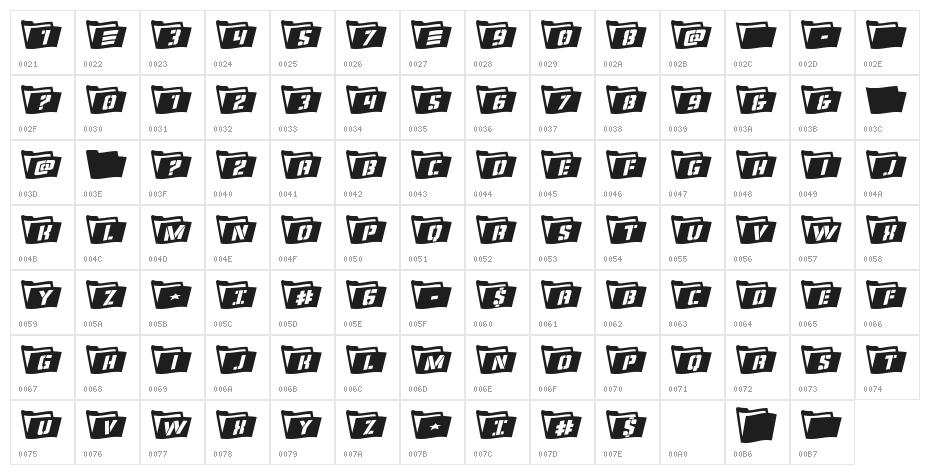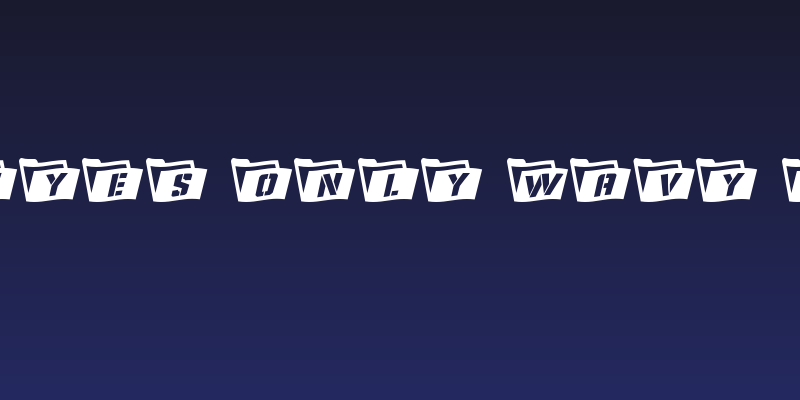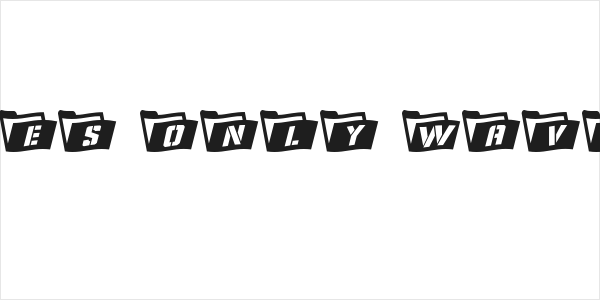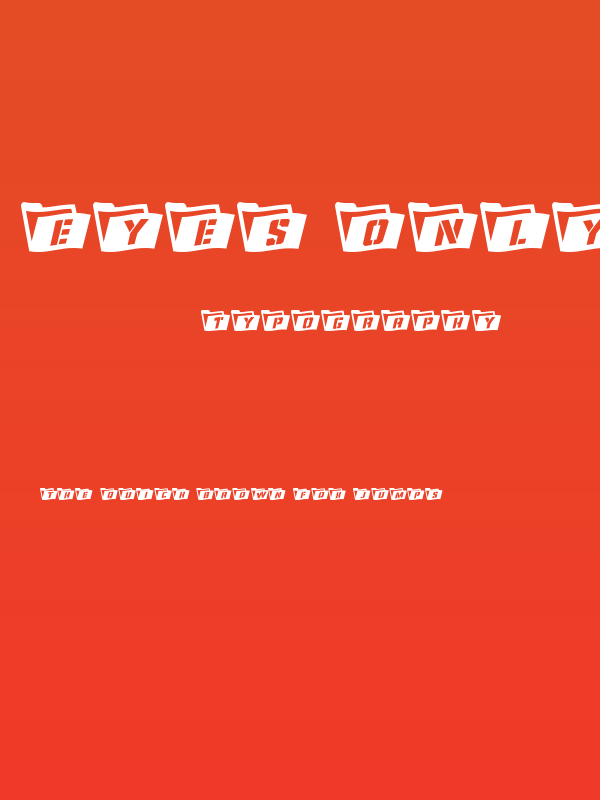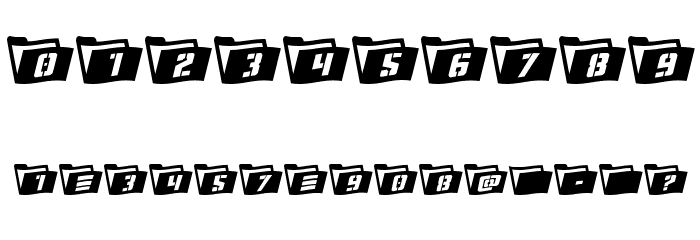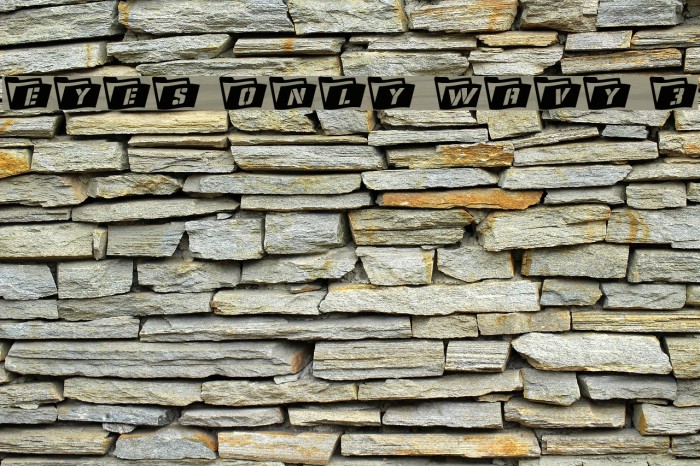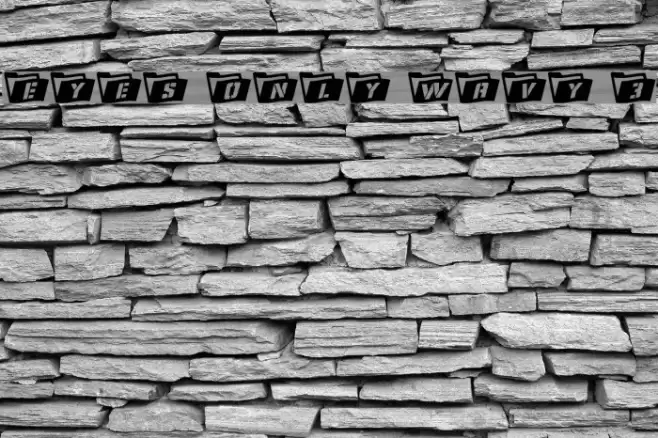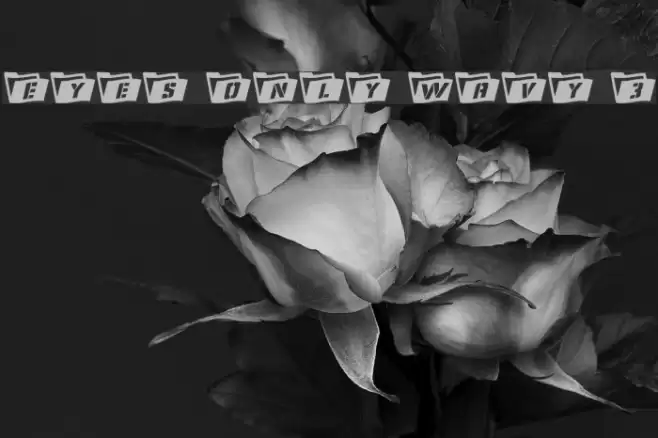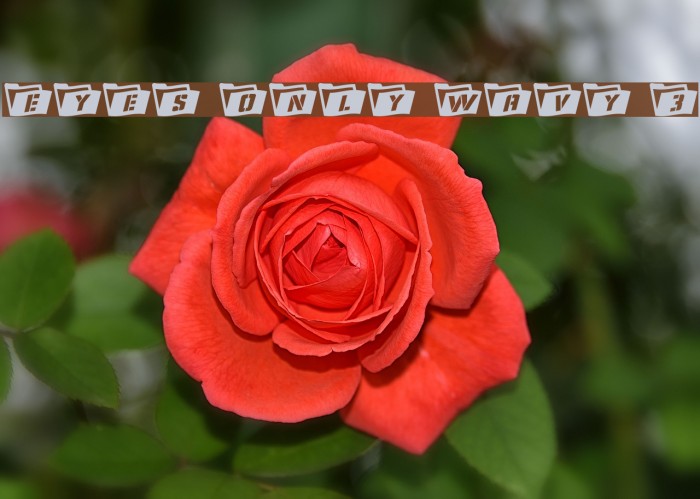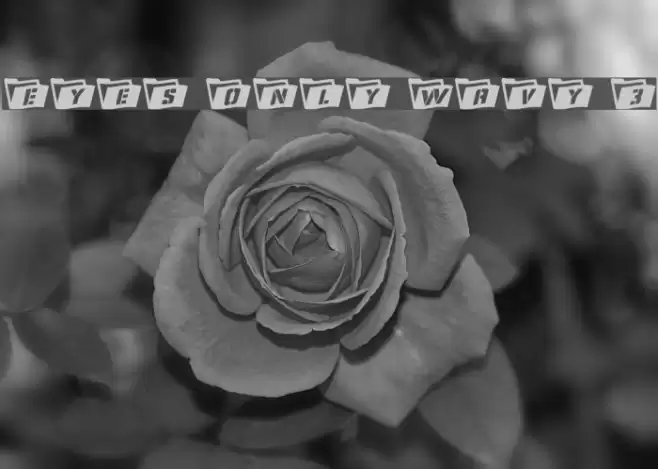
Eyes Only Wavy 3 Font
Eyes Only Wavy 3 Description
This font features a bold and dynamic style with a distinct wavy effect that gives each character a sense of motion and energy. The letters are enclosed in a unique, angular shape that adds a modern and edgy feel. The uppercase and lowercase letters maintain a consistent style, while the numbers and special characters follow the same design principles, ensuring uniformity across all glyphs. The boldness of the font makes it highly legible, even at smaller sizes, and the wavy design adds a playful and creative touch, making it suitable for eye-catching designs.
| Proposed Projects | Ideal for posters, branding, and creative projects that require a bold and energetic typeface. |